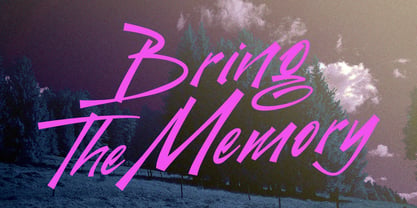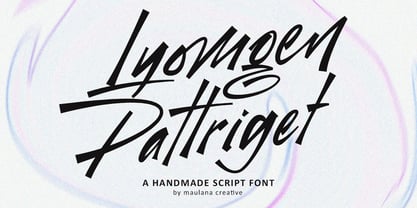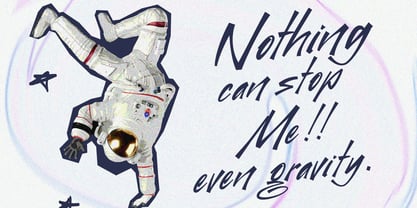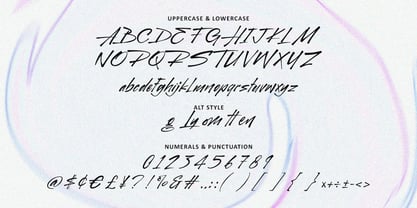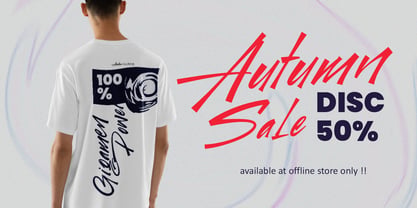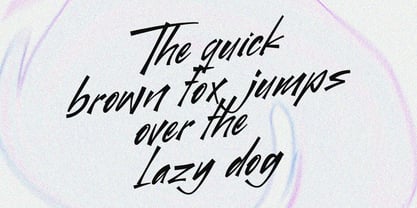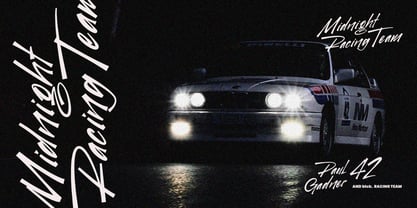
MC Lyomgen Pattriget
by Maulana Creative
The MC Lyomgen Pattriget Font Family was designed by Gilang Maulana and published by Maulana Creative. MC Lyomgen Pattriget contains 1 styles. More about this family
Give your designs an authentic handcrafted feel. “Lyomgen Pattriget Handmade Script Font” is perfectly suited to stationery, logos and much more. Include alternative character and ligature characters.
Designers: Gilang Maulana
Foundry: Maulana Creative